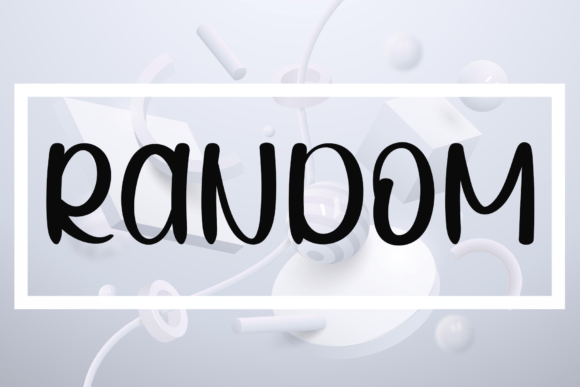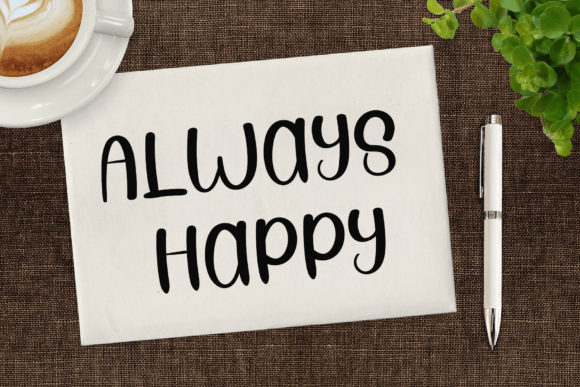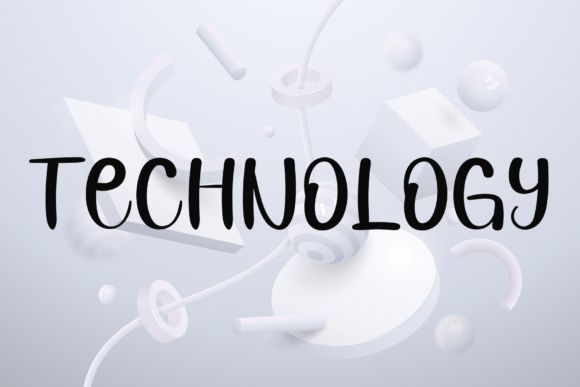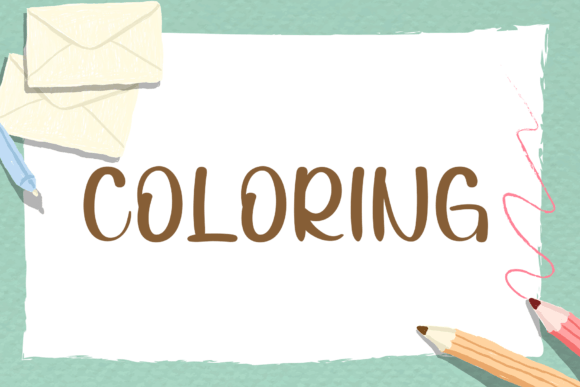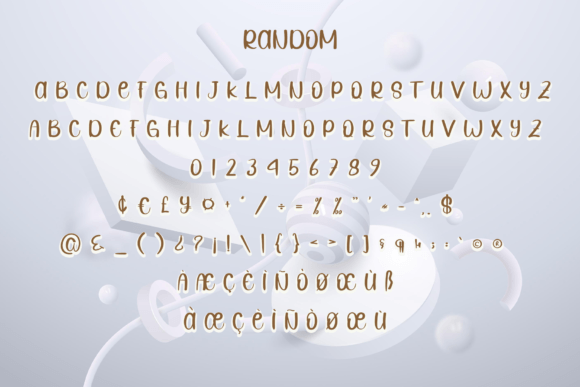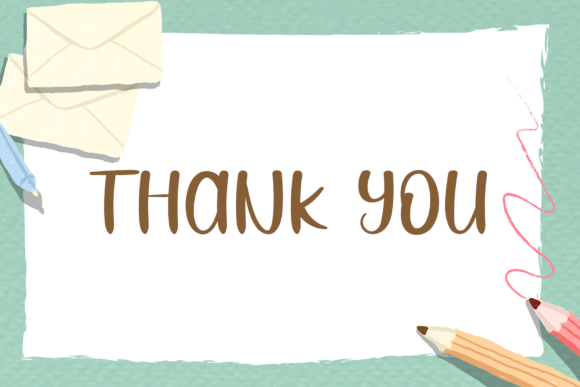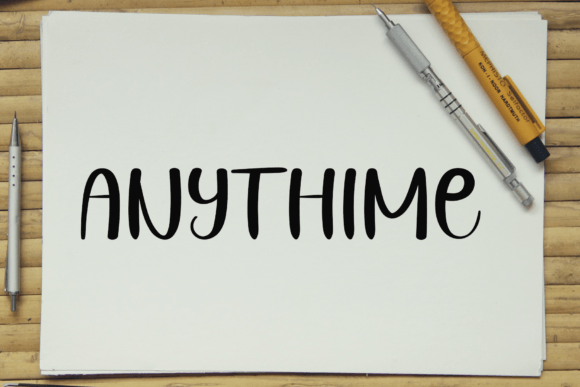
Random Font
**Random** is a trendy handwritten font that exudes a contemporary atmosphere while maintaining impeccable form and drawing inspiration from timeless classic calligraphy. This versatile typeface adds an element of elegance and class to any design project, making it a valuable asset for a wide range of creative endeavors.
The font’s trendy and contemporary style is a testament to its ability to adapt to modern design aesthetics. It combines the best of both worlds, incorporating the elegance of classic calligraphy with a fresh and up-to-date look. **Random** brings a touch of sophistication to your designs, making it suitable for a variety of projects.
Whether you’re working on branding, invitations, posters, or any creative venture, **Random** stands out with its impeccable letterforms and stylish flair. It effortlessly infuses a sense of modern elegance into your designs, ensuring they leave a lasting impact.
What sets **Random** apart is its ability to bridge the gap between classic calligraphy and contemporary design. It combines the timelessness of traditional scripts with a trendy edge, allowing you to create designs that resonate with modern audiences while retaining a touch of classic charm.
In conclusion, **Random** is a trendy handwritten font that effortlessly blends contemporary style with classic calligraphy, adding elegance and class to your design projects. Embrace its modern appeal and impeccable form, and use it to create captivating and memorable designs that stand out in today’s design landscape. With **Random** at your disposal, your creative possibilities are boundless, enabling you to craft exquisite and stylish works of art with ease.